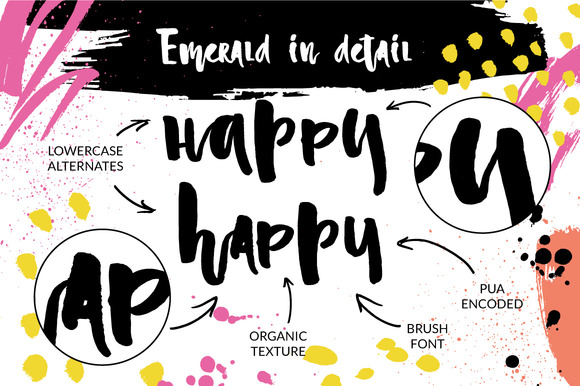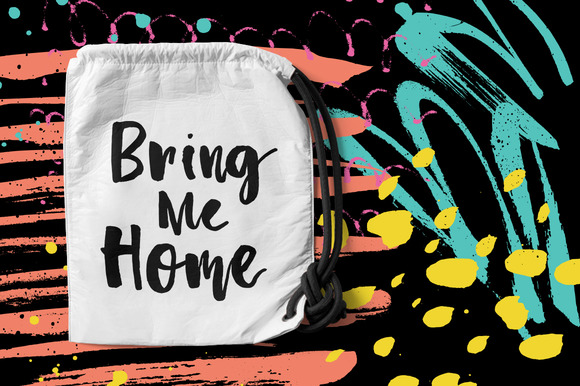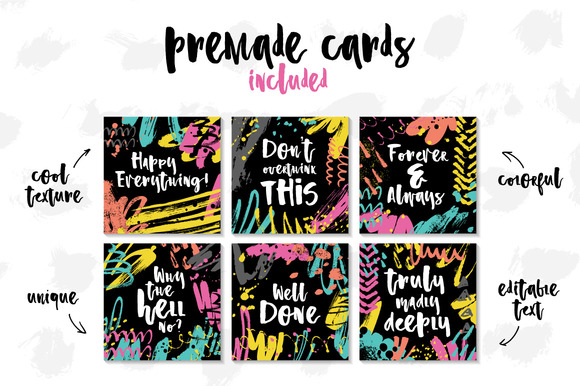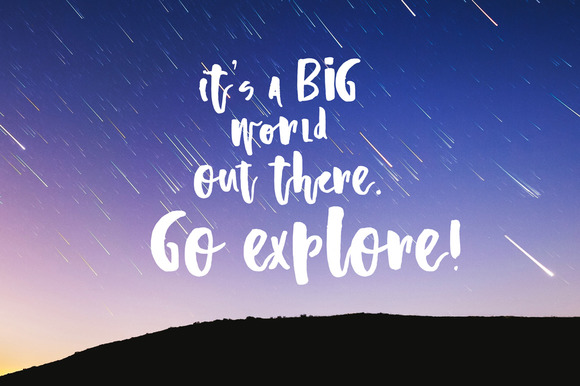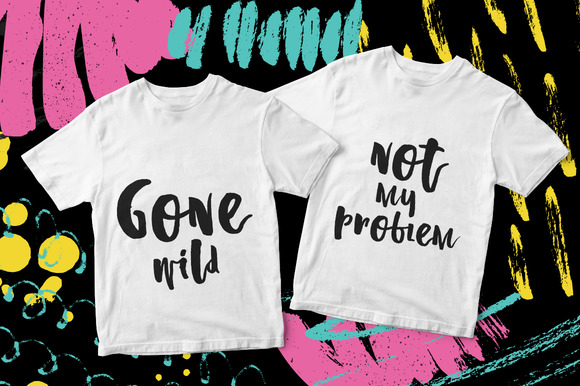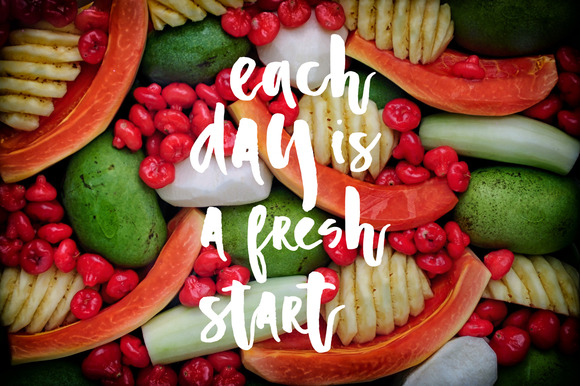
Introducing the Emerald Font: A Unique Brush Font for Creative Projects
The Emerald font is a one-of-a-kind brush font that has been making waves in the design community. With its distinctive dancing baseline and unique variations of lowercase letters, this font is perfect for designers and crafters looking to add a touch of elegance and whimsy to their projects.
What Sets Emerald Font Apart?
So, what makes the Emerald font so special? For starters, its dancing baseline gives it a playful, hand-drawn feel that’s hard to replicate with traditional fonts. This feature alone sets it apart from other brush fonts on the market, making it a standout choice for designers looking for something fresh and exciting.
But that’s not all – the Emerald font also boasts some truly unique variations of lowercase letters. These variations add an extra layer of depth and visual interest to any project, making it perfect for use in titles, headings, and other design elements where you want to make a statement.
Whether you’re a professional designer or a crafty DIY enthusiast, the Emerald font is an excellent choice for a wide range of projects. Here are just a few ideas to get you started:
- Invitations and greeting cards: The Emerald font’s elegant, cursive feel makes it perfect for formal and informal invitations, as well as greeting cards for special occasions.
- Branding and packaging: Add a touch of sophistication to your brand’s packaging and marketing materials with the Emerald font’s unique, hand-drawn look.
- Signs and banners: The Emerald font’s bold, playful feel makes it a great choice for signs and banners that need to grab attention.
- Digital and print media: Use the Emerald font in digital and print media, such as blog posts, social media graphics, and magazine ads, to add a touch of elegance and whimsy.
Tips for Using the Emerald Font
To get the most out of the Emerald font, here are a few tips to keep in mind:
- Experiment with different sizes and colors: The Emerald font looks great in a variety of sizes and colors, so don’t be afraid to experiment and find the combination that works best for your project.
- Pair it with complementary fonts: The Emerald font pairs well with a range of other fonts, including sans-serif fonts like Arial and Helvetica, as well as script fonts like Pacifico and Great Vibes.
- Use it to add visual interest: The Emerald font’s unique variations of lowercase letters make it perfect for adding visual interest to your design. Use it to highlight key words or phrases, or to create a sense of movement and energy.
In conclusion, the Emerald font is a unique and versatile brush font that’s perfect for designers and crafters looking to add a touch of elegance and whimsy to their projects. With its dancing baseline and unique variations of lowercase letters, this font is sure to make a statement. So why not give it a try and see what amazing things you can create?
- Font type: Brush font
- Font style: Script